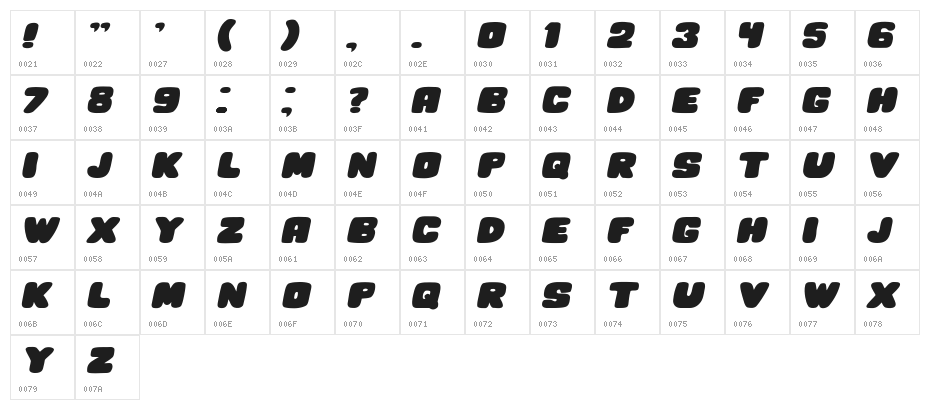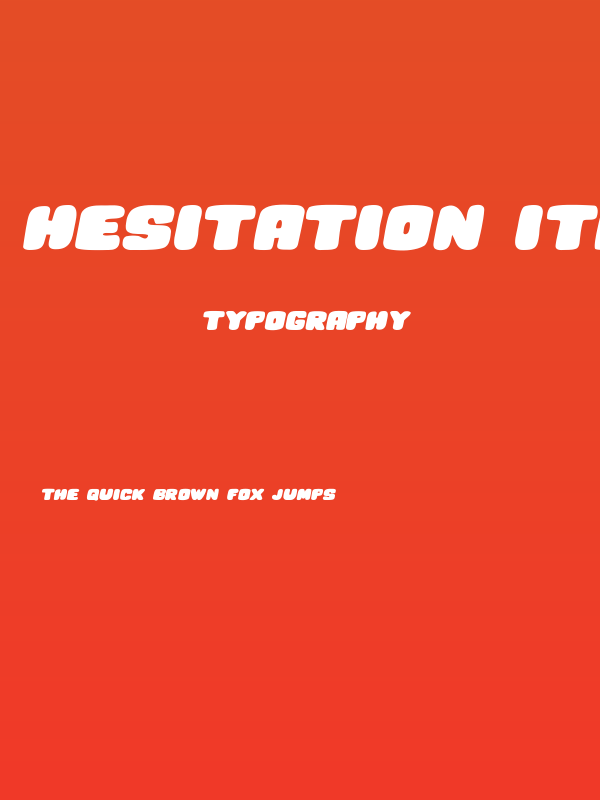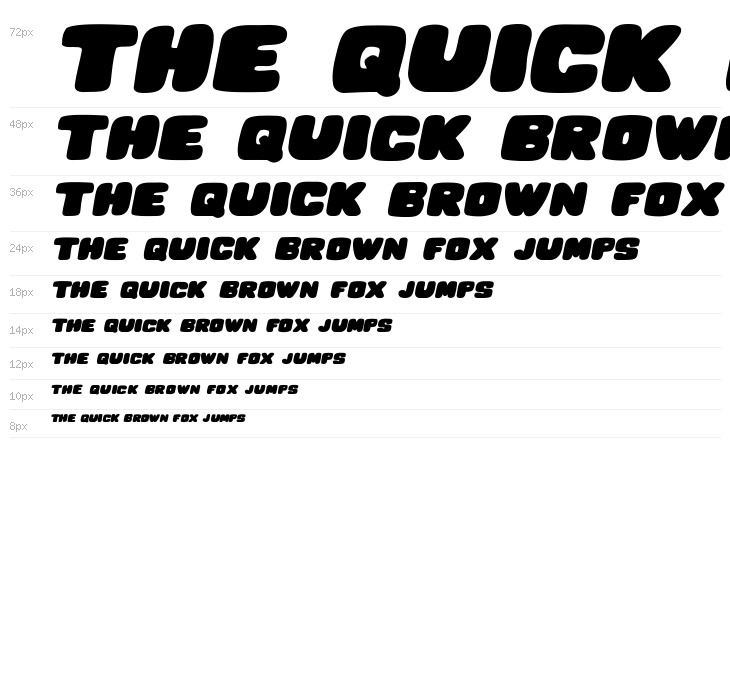
Hesitation Italic Font
Hesitation Italic Description
This font features a bold, rounded style with a playful and dynamic appearance. The letters are thick and slightly slanted, giving an italicized look that adds movement and energy. The characters are uniformly bold, with consistent stroke thickness throughout, creating a cohesive and impactful visual presence. The rounded edges soften the overall look, making it approachable and friendly. This font is highly legible, with clear distinctions between each character, making it suitable for various design applications. The numbers and special characters maintain the same bold and rounded style, ensuring consistency across all elements.
| Proposed Projects | Ideal for branding, posters, headlines, and any design project that requires a bold and energetic typeface. |